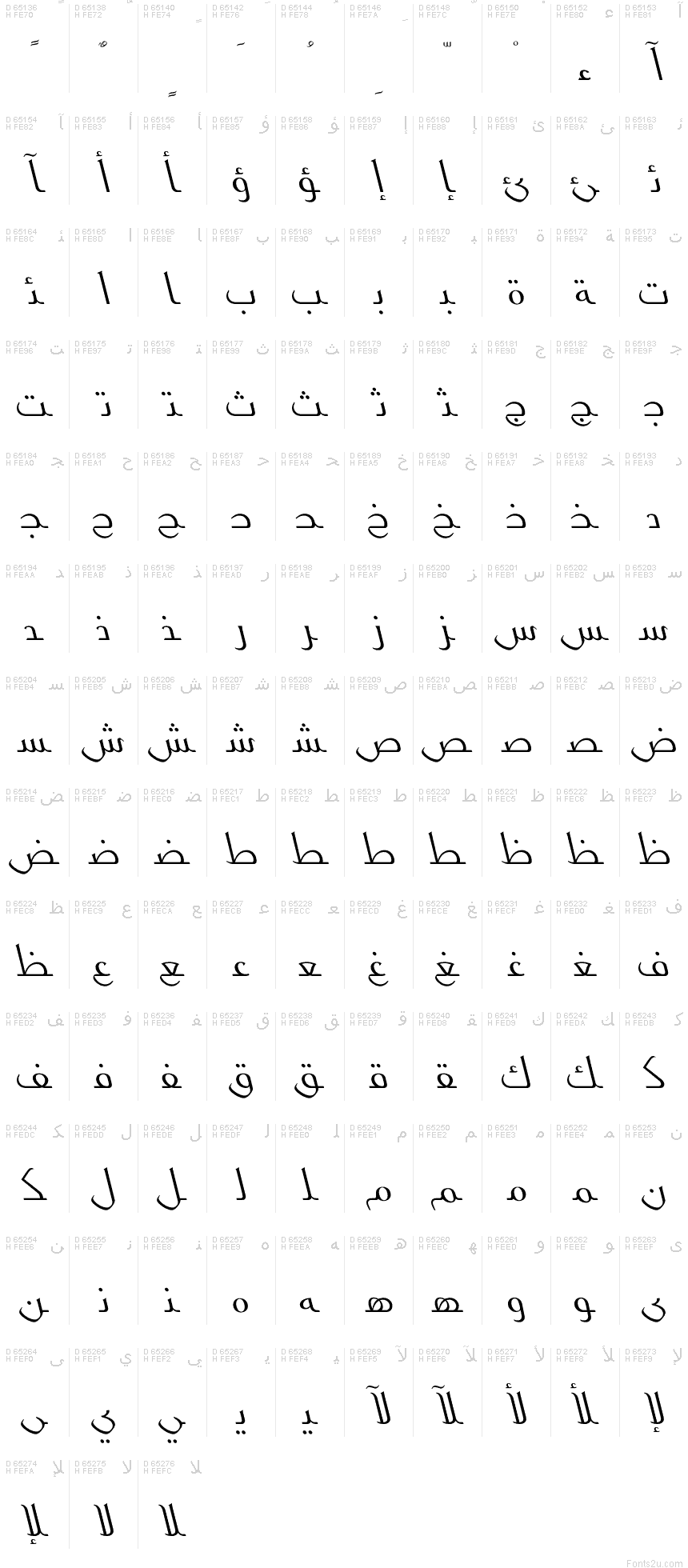
GE Elegant Italic, designed by Mourad Boutros of Boutros International, is a free italic sans serif with a poised forward slant. Its smooth, measured strokes and softly tapered curves give the lettering a refined calligraphic flow without ornate detailing.
Contemporary culture and Arabic-language publishing suit its graceful movement, especially in magazines, invitations, and event graphics. For fashion or hospitality branding, the slanted forms can shape a polished product identity that feels expressive yet controlled.